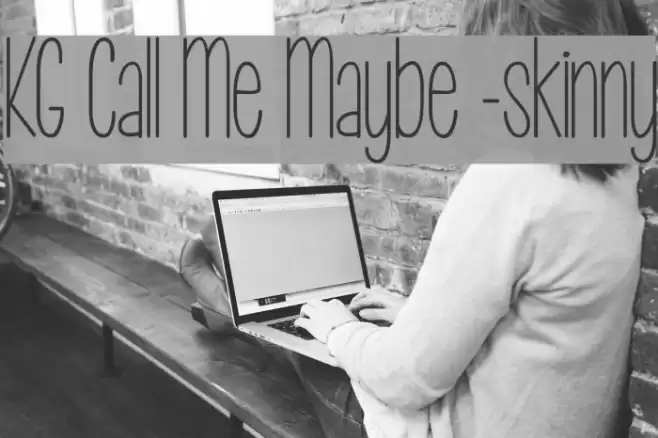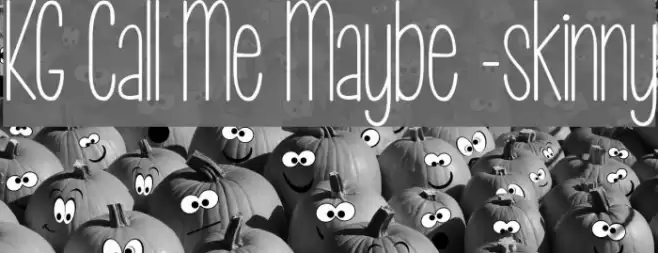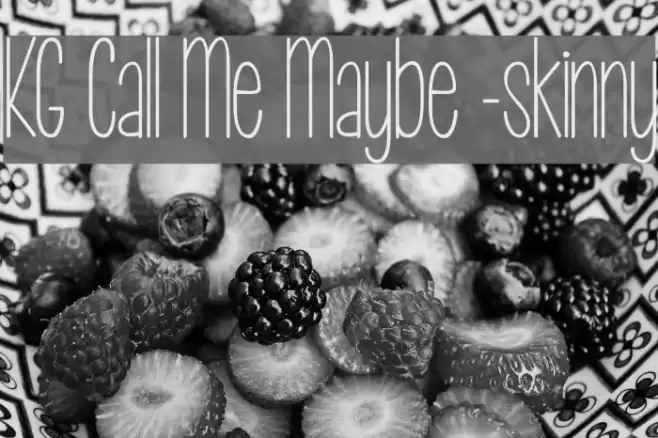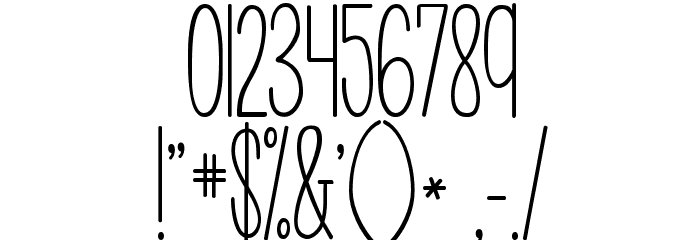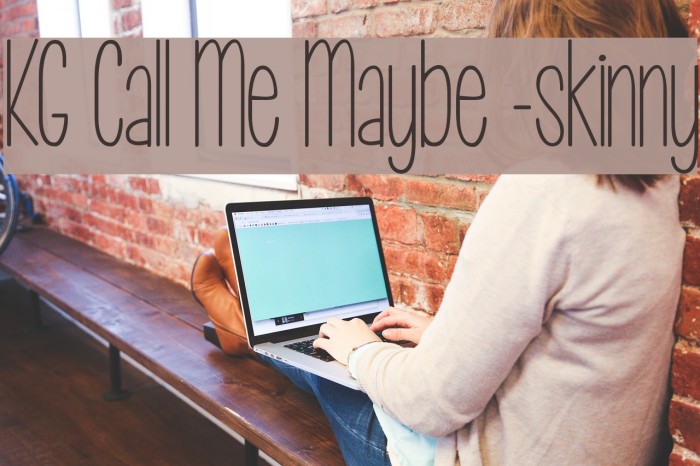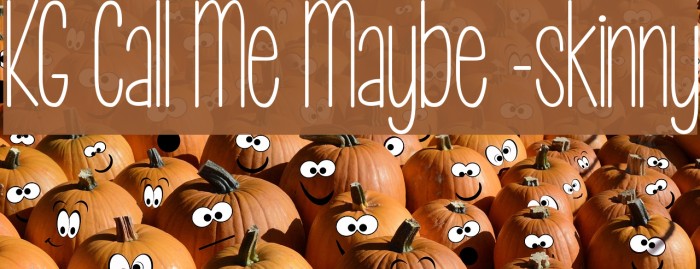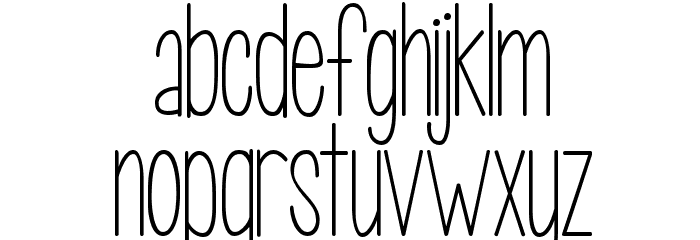
KG Call Me Maybe -skinny Font
KG Call Me Maybe -skinny Description
This font features a tall, narrow design with elongated characters that give it a sleek and modern appearance. The letters are uniformly thin, creating a consistent and elegant look. The uppercase and lowercase letters maintain a similar height, enhancing the uniformity of the typeface. The numbers and special characters are designed to match the overall aesthetic, with the same slender and elongated style. This font's minimalistic and clean lines make it suitable for contemporary design projects.
A tall, narrow font with elongated, thin characters for a sleek, modern look from Uncategorized fonts.
- Proposed Projects: Ideal for fashion magazines, modern branding, minimalist posters, and elegant invitations.